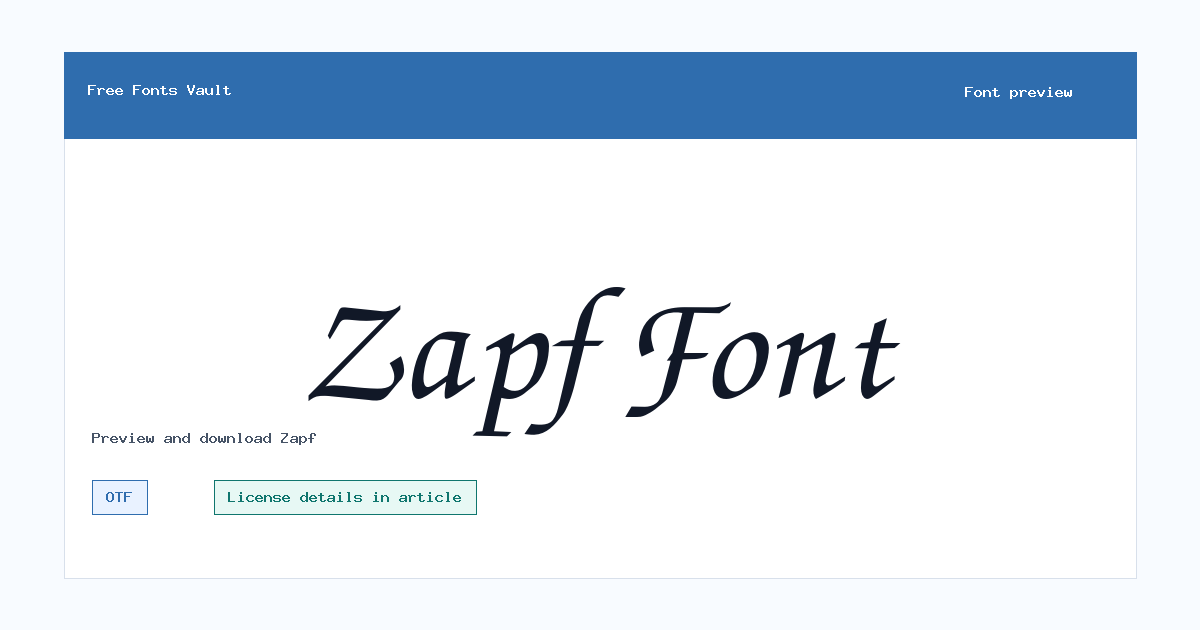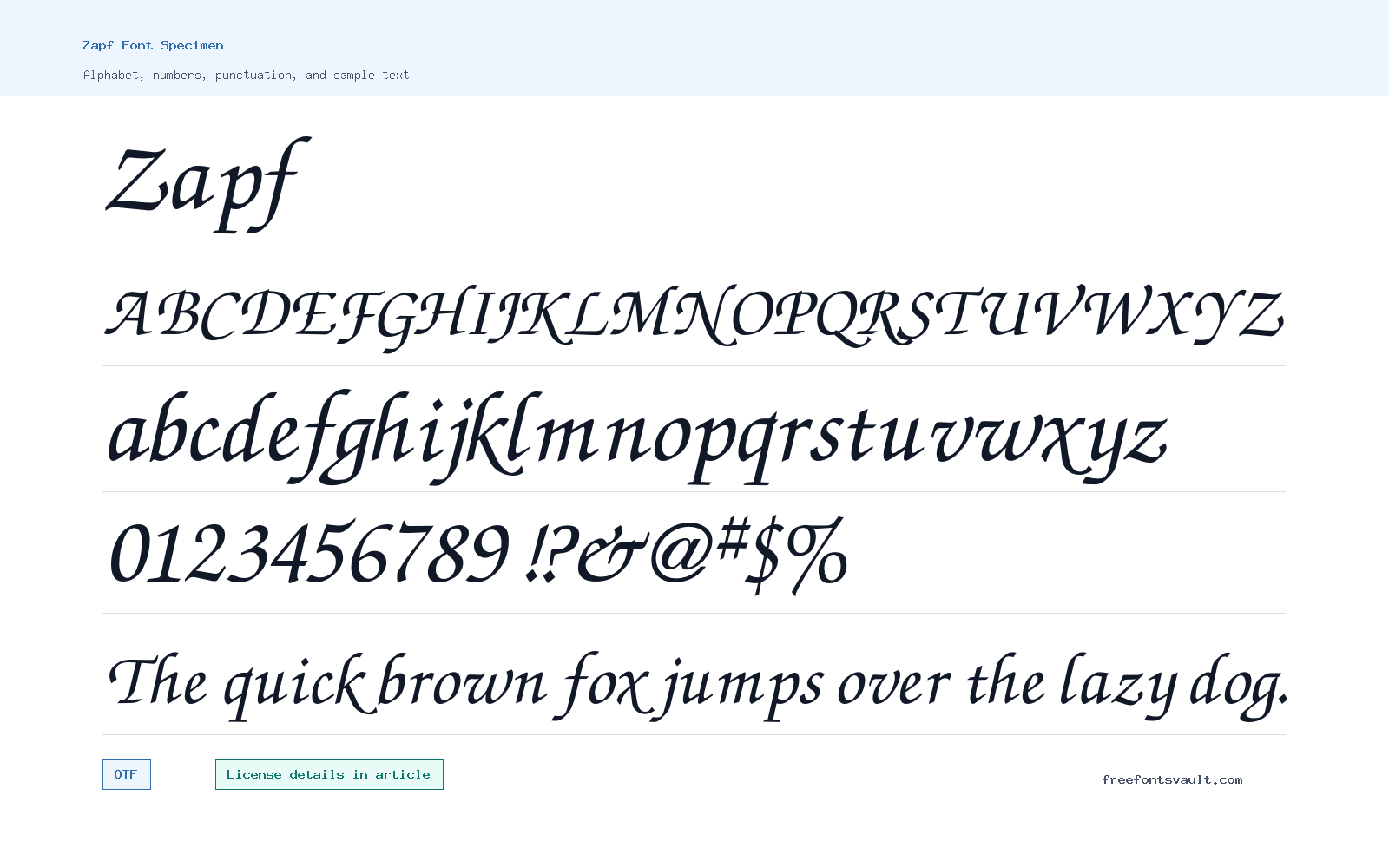
Zapf
- Designer Copr.1992 Image Club Graphics, Inc.
Zapf Chancery Medium Italic is a calligraphic script style with a slanted, handwritten look. It works best when you need a formal accent rather than a full reading font.
About Zapf Chancery Medium Italic
Zapf Chancery is closely tied to the ITC Zapf Chancery family, a chancery-style typeface designed by Hermann Zapf and released in 1979. Its letterforms draw from Renaissance handwriting, with flowing italic movement, broad-pen rhythm, and a polished script feel. The Medium Italic style became especially familiar because it was included in the original Apple LaserWriter core font set and later appeared on Mac and Windows systems.
Use Zapf for short, decorative text where its calligraphic shape can stand out: names on invitations, certificate lines, formal headings, restaurant menu accents, wine or product labels, quotes, and classic stationery-style designs. It is not a good choice for long paragraphs, small UI text, or all-caps headlines. For cleaner results, preview your exact wording, check spacing around capitals, and pair it with a quiet serif or sans-serif for body copy.
- Calligraphic chancery script with an italic slant
- Medium weight suitable for short formal headings and display text
- Classic script style associated with invitations, certificates, labels, and stationery
- Wedding invitations and event cards
- Certificates and awards
- Restaurant menus and formal headings
- Product labels and packaging accents
- Quotes, names, and short decorative lines
- Classic stationery-inspired designs
ITC Zapf Chancery is credited to Hermann Zapf. The local font file information also shows copyright text for Image Club Graphics, Inc. from 1992, so editors should keep the family history and this specific file record separate.
Set Zapf in short phrases, names, or headings rather than long text. Avoid all caps, keep swashes and capitals from crowding, and test the preview at the size you plan to use. A simple serif or neutral sans-serif can handle supporting text while Zapf provides the script accent.
Is Zapf good for body text?
No. It is easier to read as short display text, such as names, headings, labels, or certificate lines. Use a plain companion font for paragraphs.
Who designed Zapf Chancery?
ITC Zapf Chancery is credited to Hermann Zapf. This specific local file also carries 1992 copyright text for Image Club Graphics, Inc.
Why does Zapf look familiar?
The Medium Italic style became widely seen after its inclusion with the original Apple LaserWriter core font set and later system font availability.